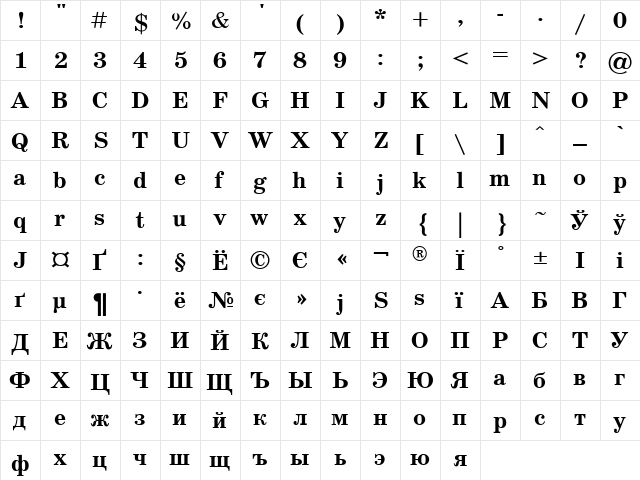
UkrainianSchoolBook Bold
UkrainianSchoolBook is a composed and adaptable typeface that performs quietly and consistently across a wide range of design contexts. The heavy weight commands attention and anchors typographic hierarchies.